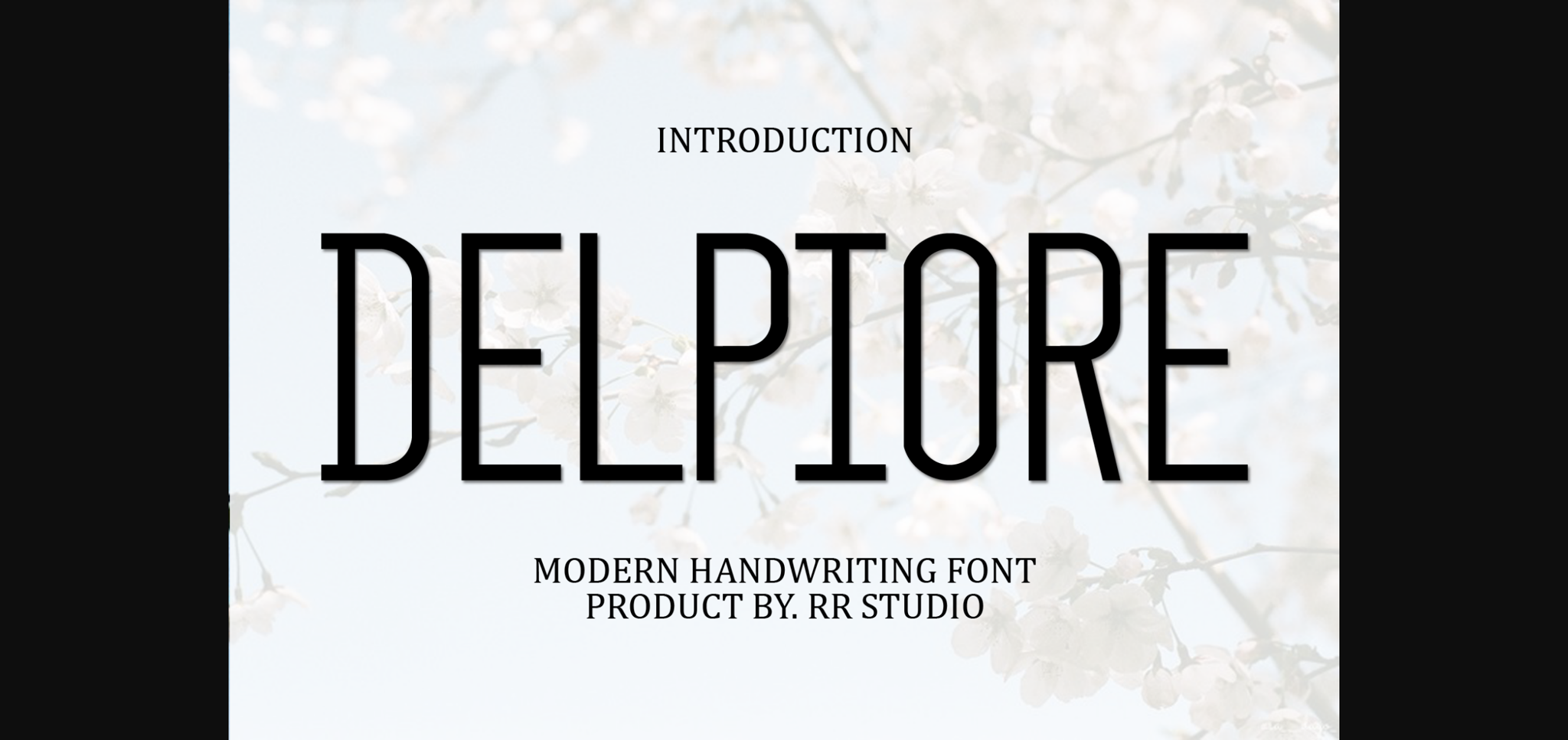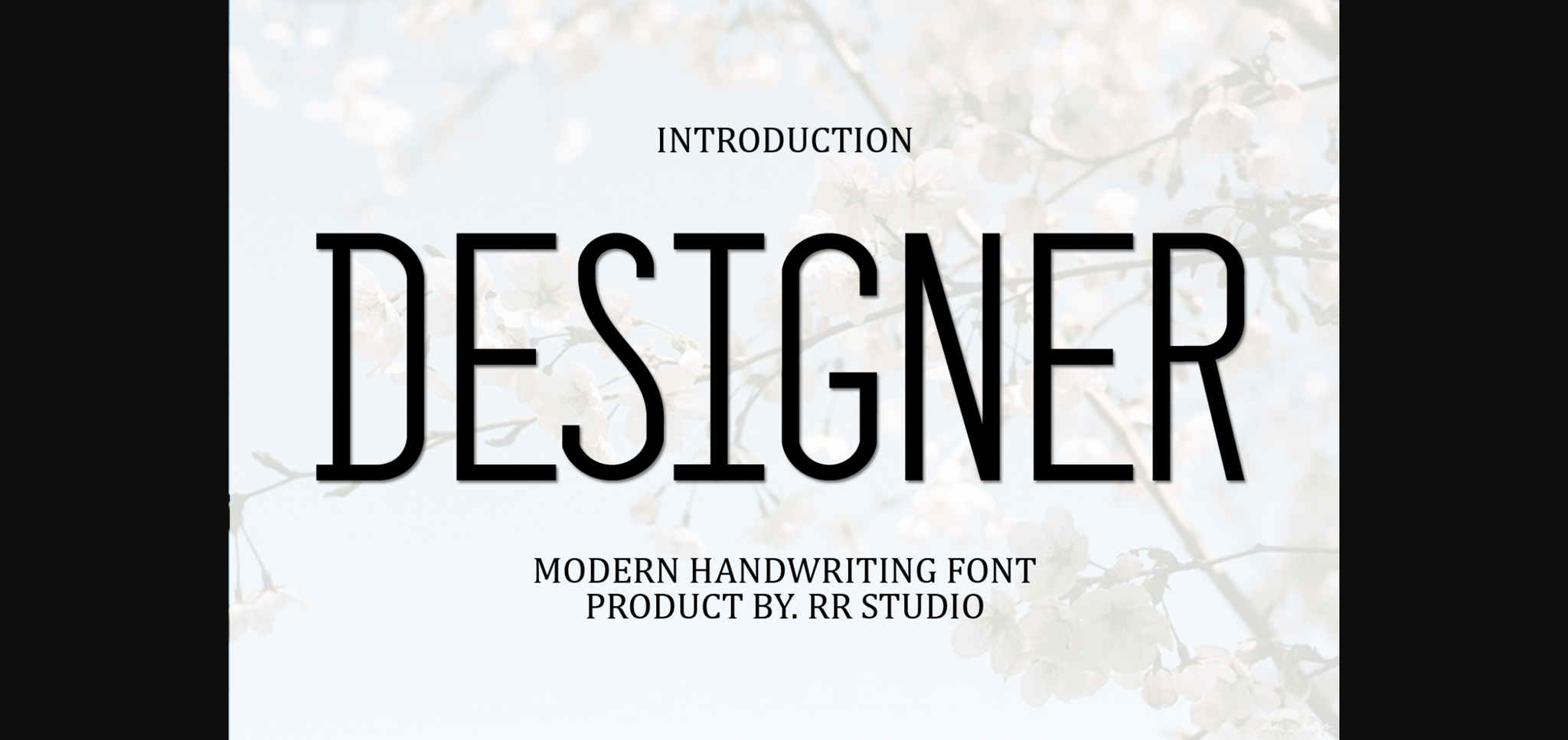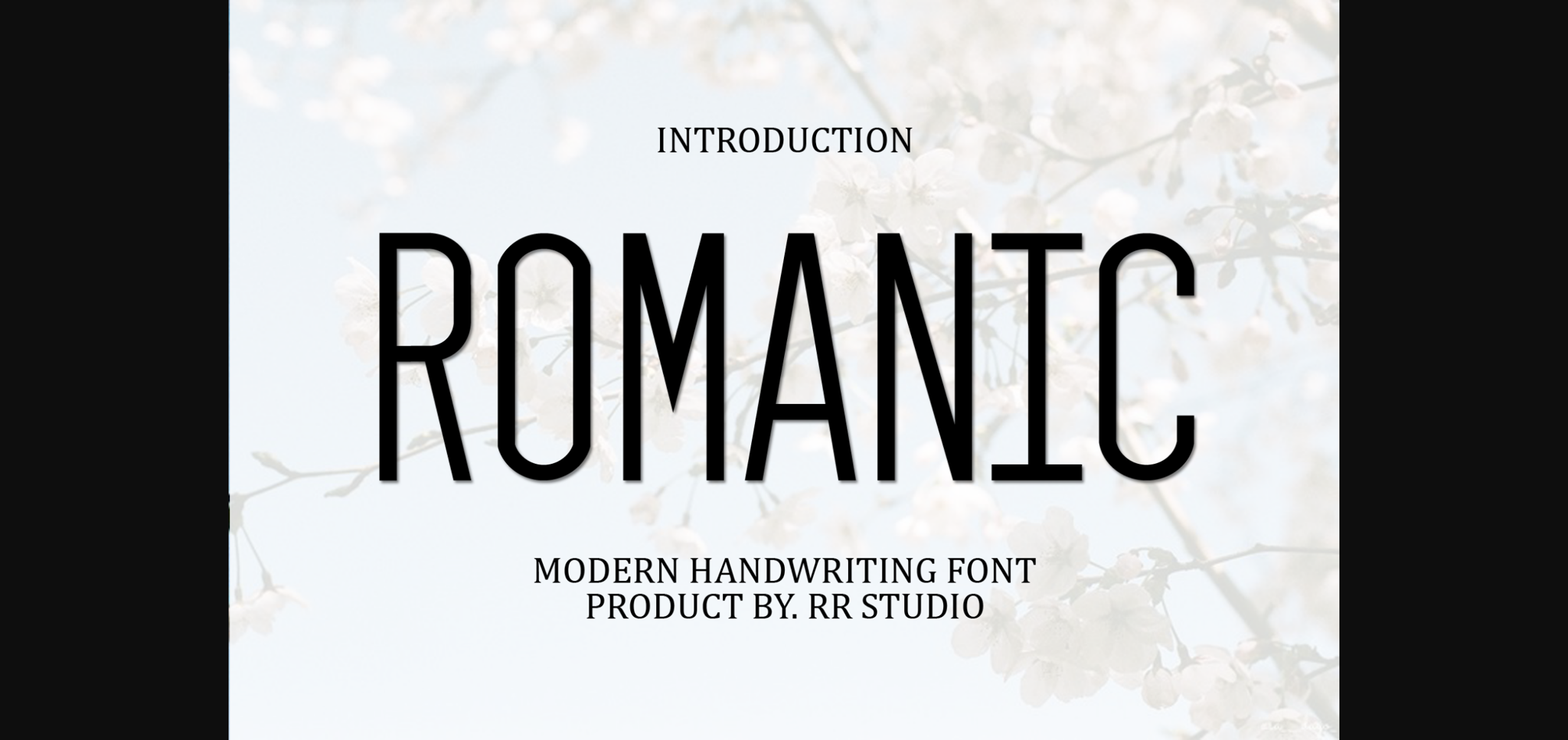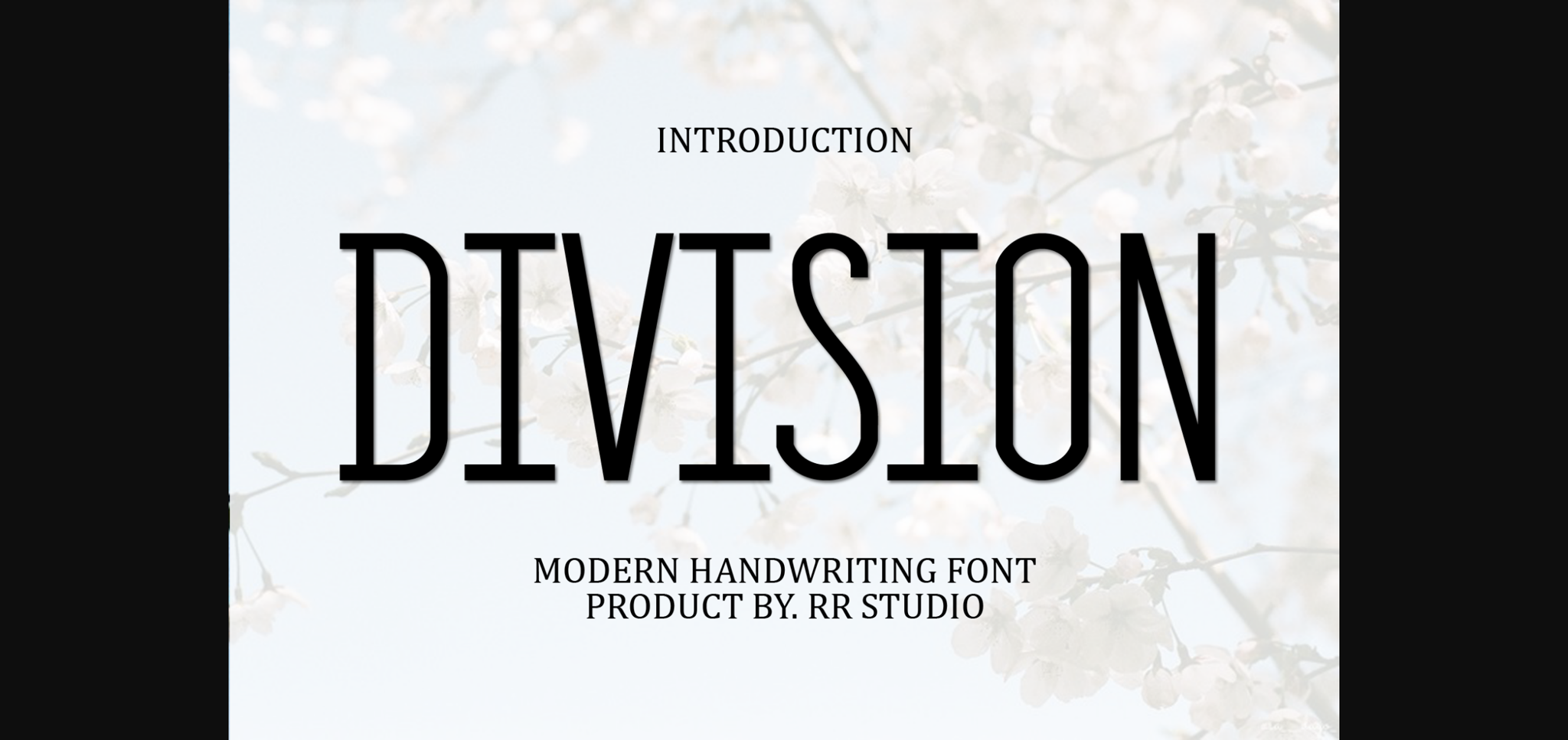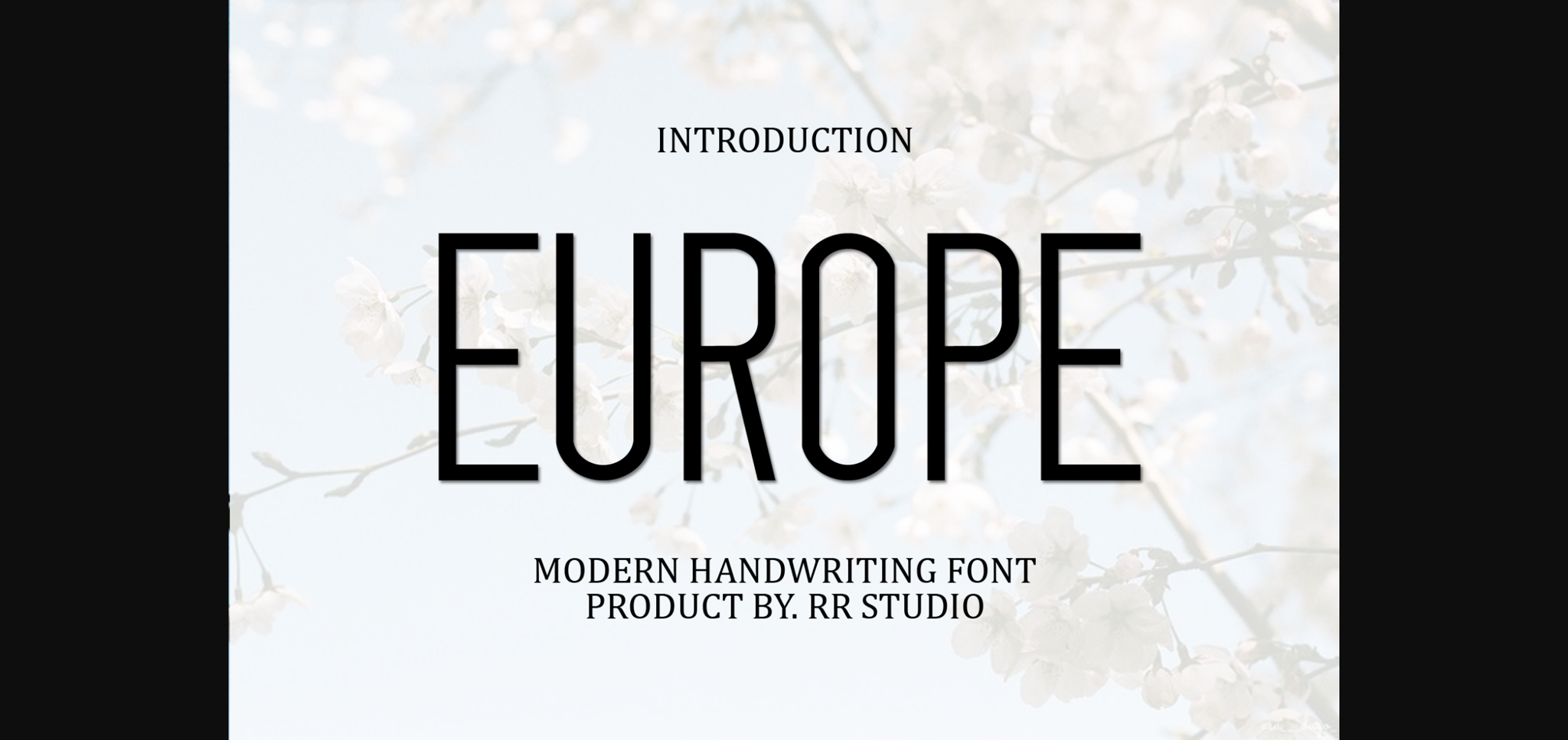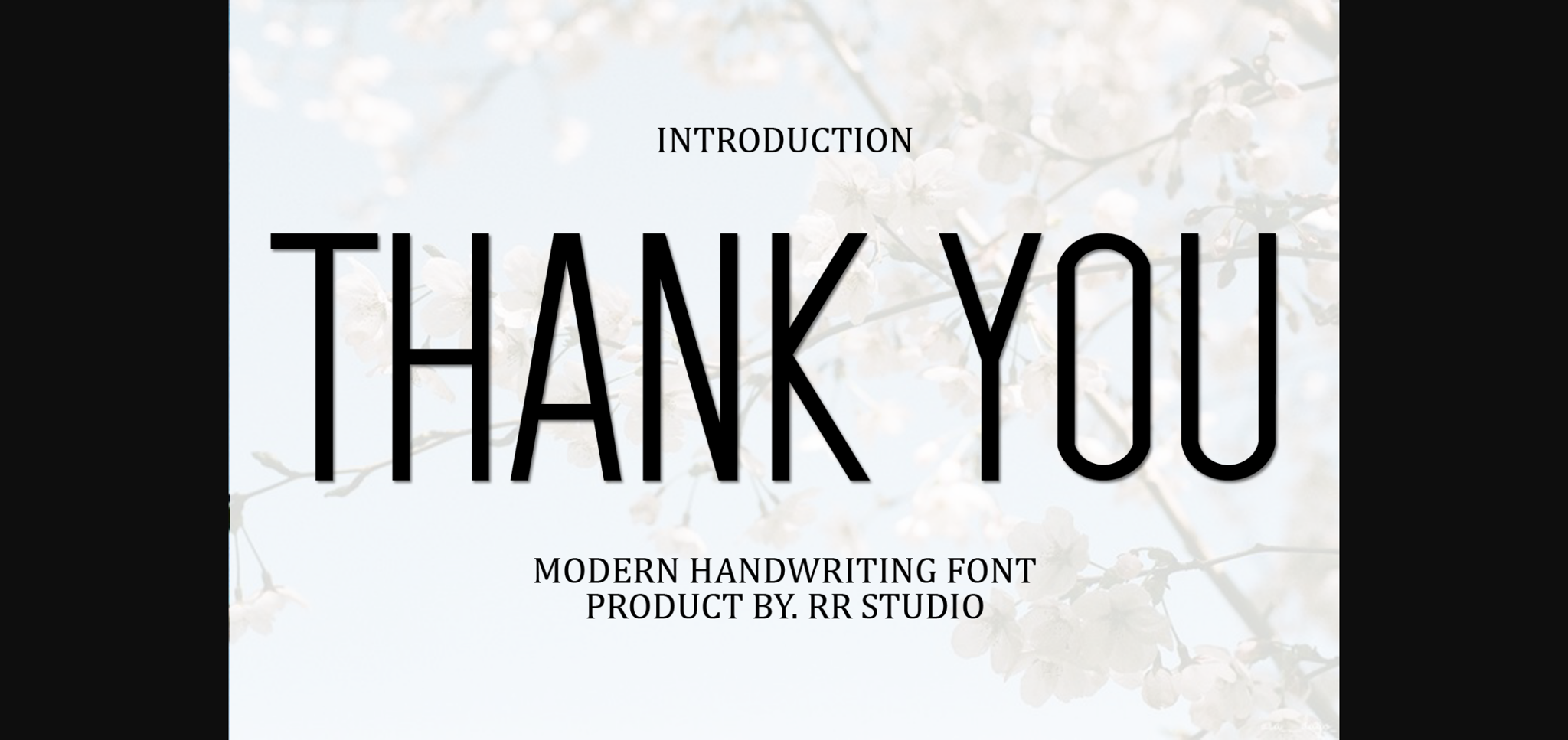
Delpiore Font
About Delpiore Font
Delpiore is a classic and simple handwritten script, created in a random and free style.
It is suitable for logotype, headline font, in corporate identity, brand identity, apparel industry, poster, music, movie, game, magazine, book, comic, cartoon, YouTube, Instagram, website, or any of your creative design projects
Delpiore is a stylish and incredibly elegant handwritten font. It looks stunning on wedding invitations, thank you cards, quotes, greeting cards, logos, business cards and every other design which needs a handwritten touch.